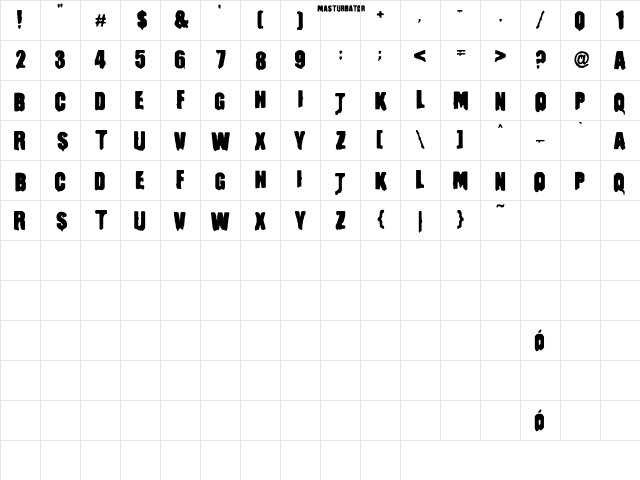
Masturbator Regular Free Font
Masturbator Regular
Foundry: High-Logic
Designer: High-Logic - Erwin Denissen
Design Context for Masturbator
Masturbator is a composed and adaptable typeface that performs quietly and consistently across a wide range of design contexts.